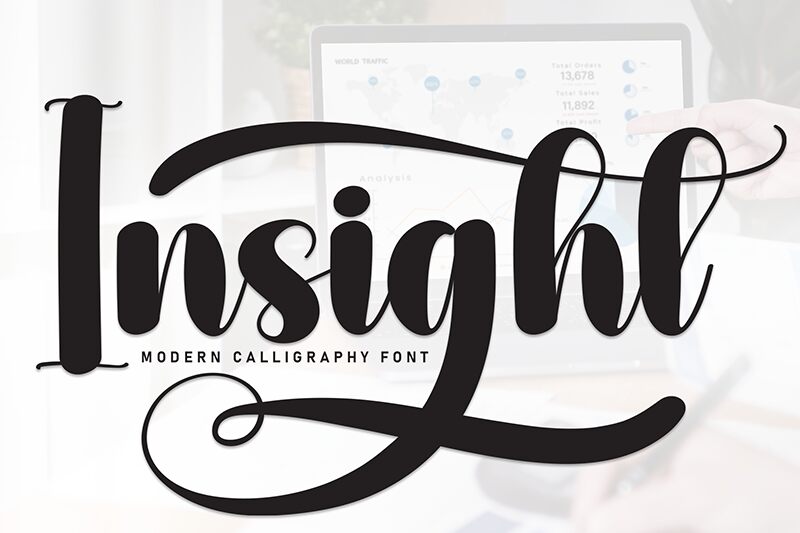
Insight
Insight font by Scratchones is a condensed calligraphy typeface that brings elegance and artistic flair to the design table. Flowing and cursive-inspired, its overall look makes it suitable for both vintage designs and modern branding projects. Use this expressive type in places where you need to add a gentle touch as well as enhance your texts’ readability.
Free for any use, Insight finds itself useful in quotes, brand identity projects, logos, handwritten letters, magazines fronts, stationery designs. Typographic posters or website titles might also be places that could benefit from this lovely presence. Lastly remember about invitations (especially wedding ones) or greeting cards.